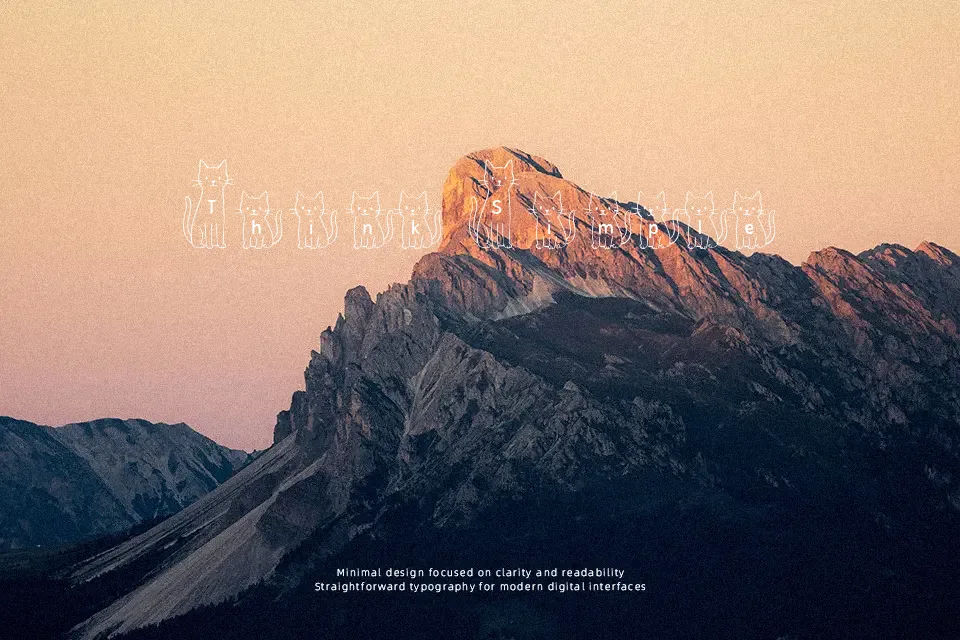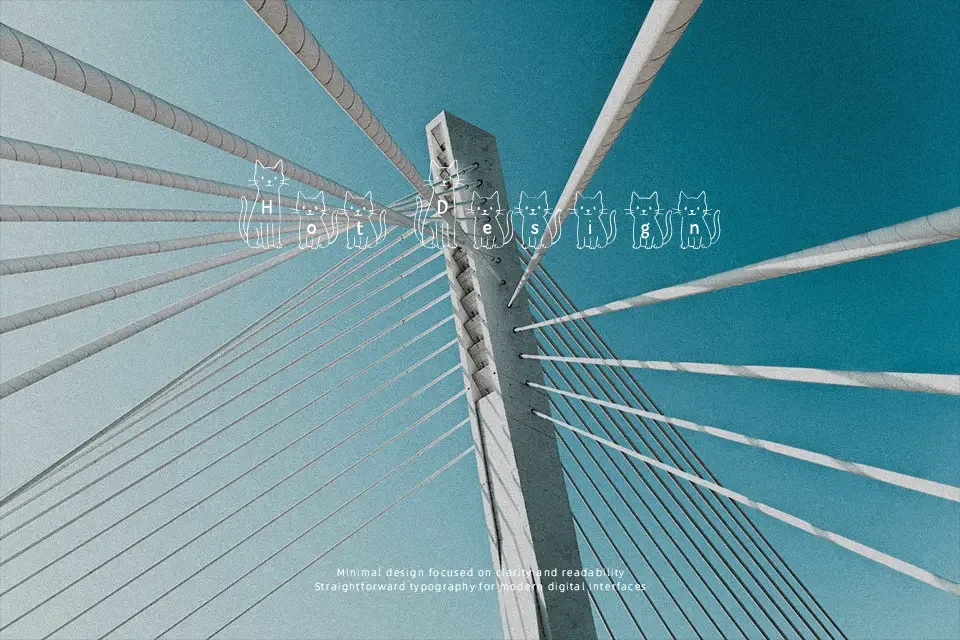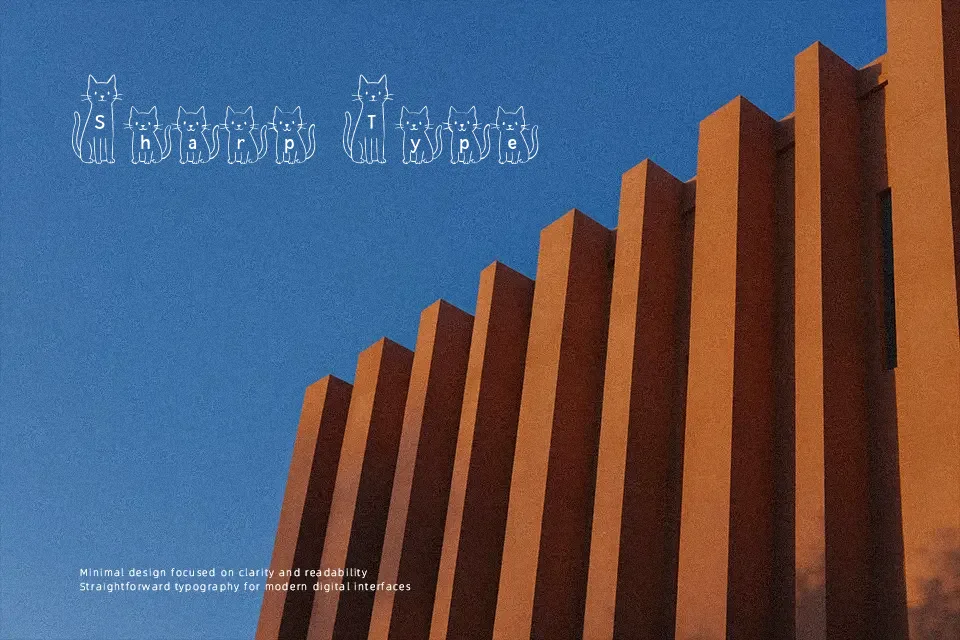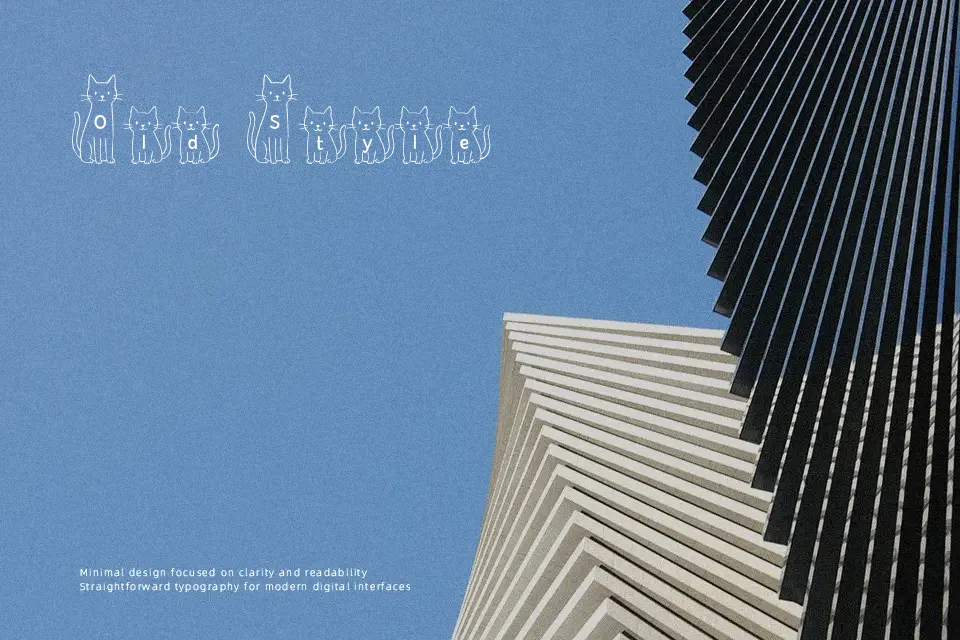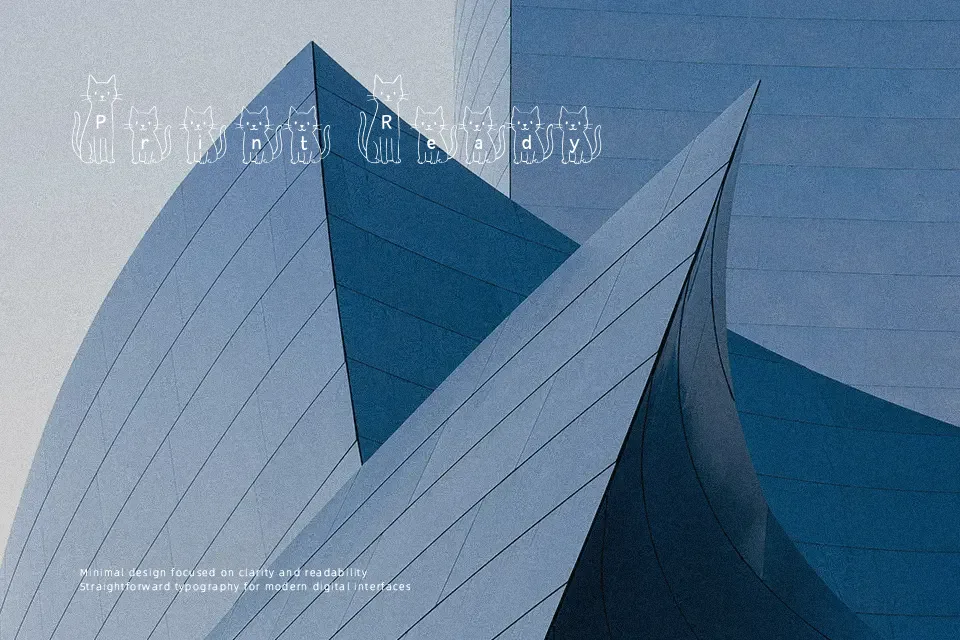
Tall Cat Short Cat Font
Designed by Misti's Fonts
Tall Cat Short Cat Font relies on illustrative letterforms where each character is shaped through cat silhouettes, featuring elongated forms for capitals and compact figures for lowercase. The design uses consistent single-weight contour strokes, open interior counters, and generous tracking to keep adjacent figures distinguishable. These whimsical proportions make the typeface particularly compelling for youth apparel graphics, storybook covers, and zoo event signage. However, the complex figurative outlines reduce visual comfort in continuous text passages. The intricate silhouettes perform reliably across short headlines, though small captions quickly lose definition.
Best For: children book titles, playful sticker designs, pet shop signage, youth event posters
Not Ideal For: dense editorial paragraphs, technical documentation, mobile interface menus, financial reports
Perfect for advertising, headline, and kids, with a creative and cartoon style.